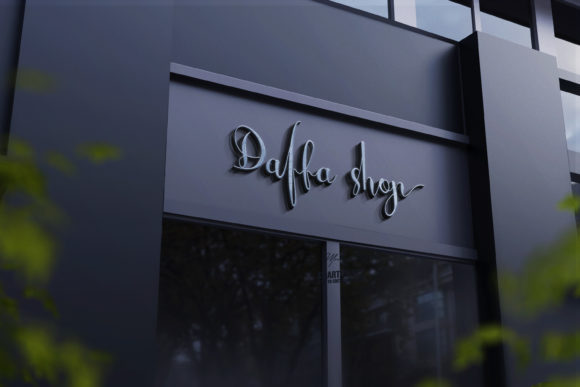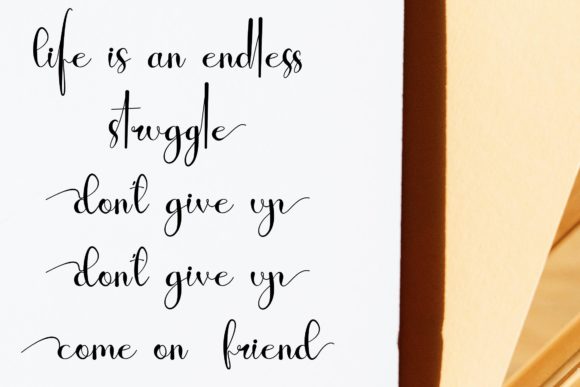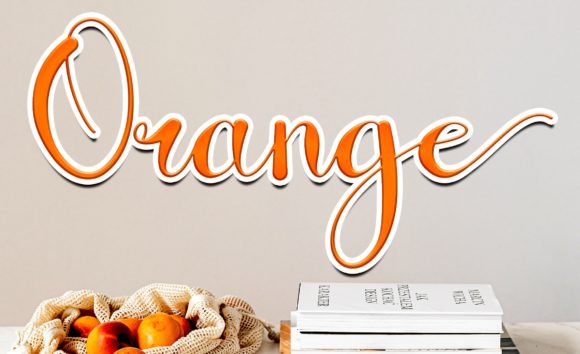
About Shoottest Font
Shoottest is a chic, refined script font that emanates sophistication and elegance. Its stylish alternates and ligatures make this font the perfect match for any project. Shoottest is PUA encoded which means you can access all of the amazing glyphs and ligatures with ease!